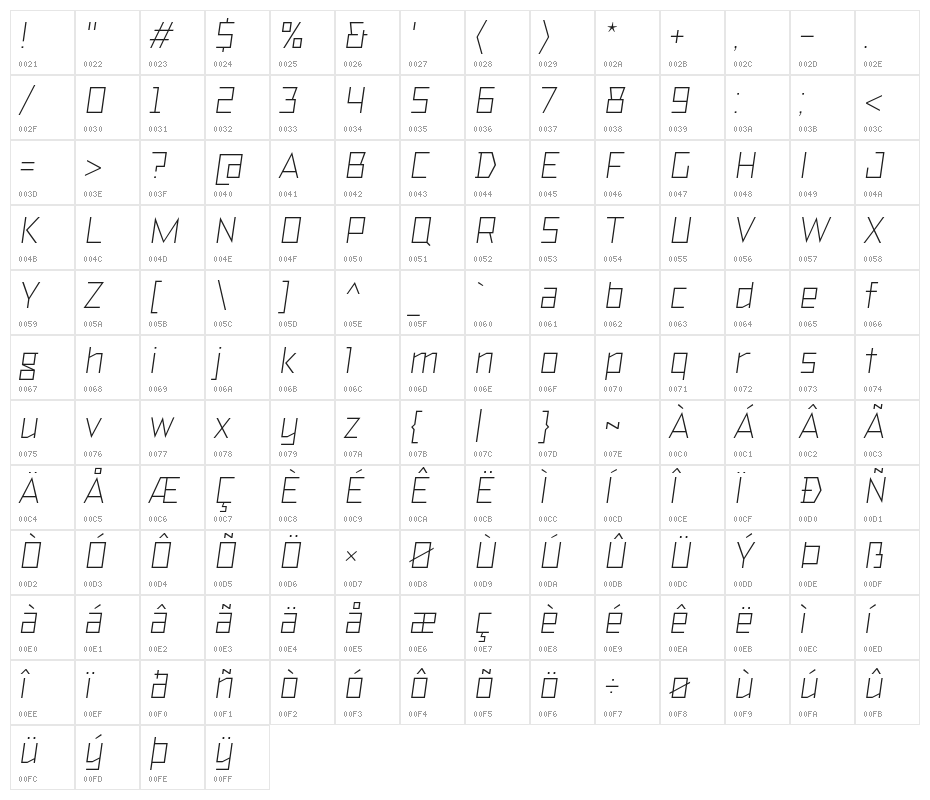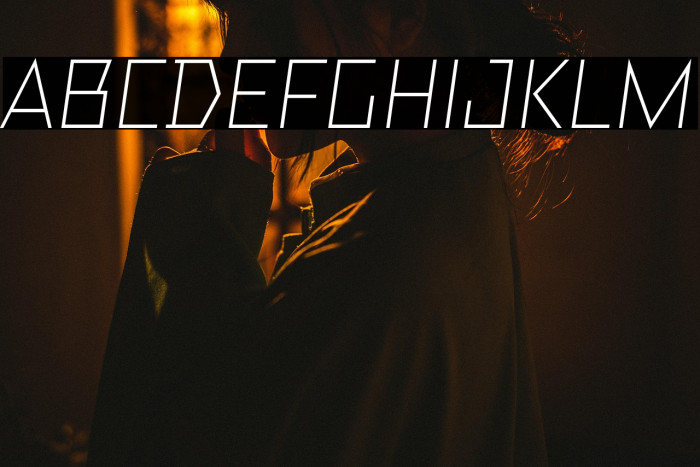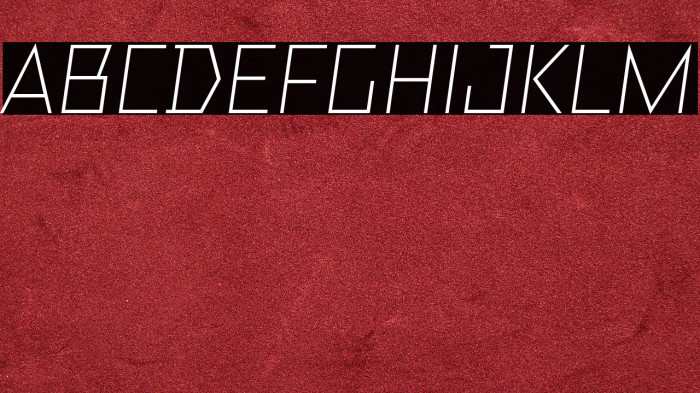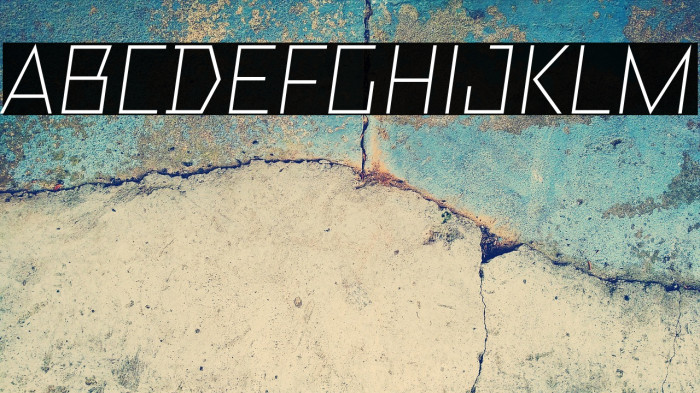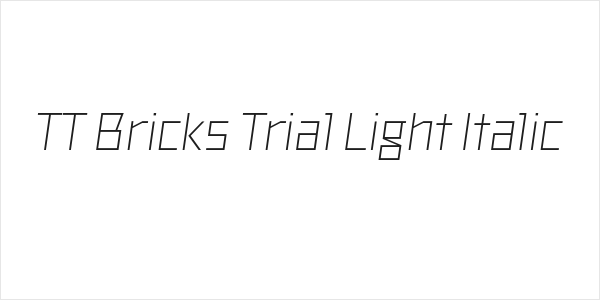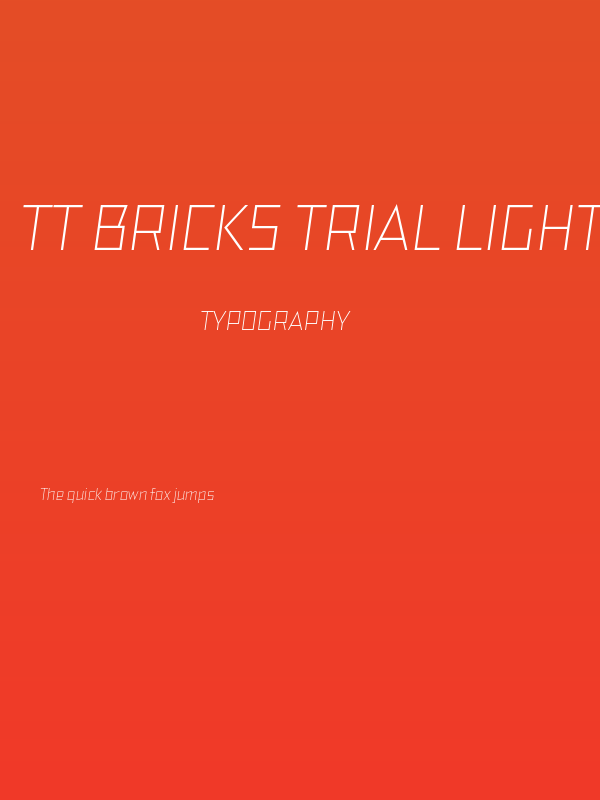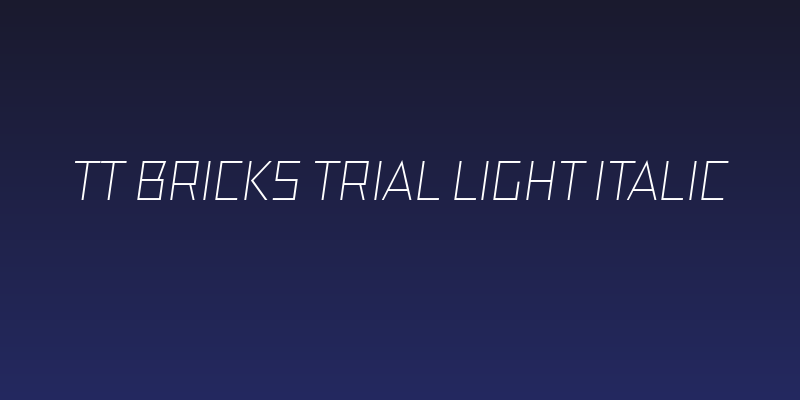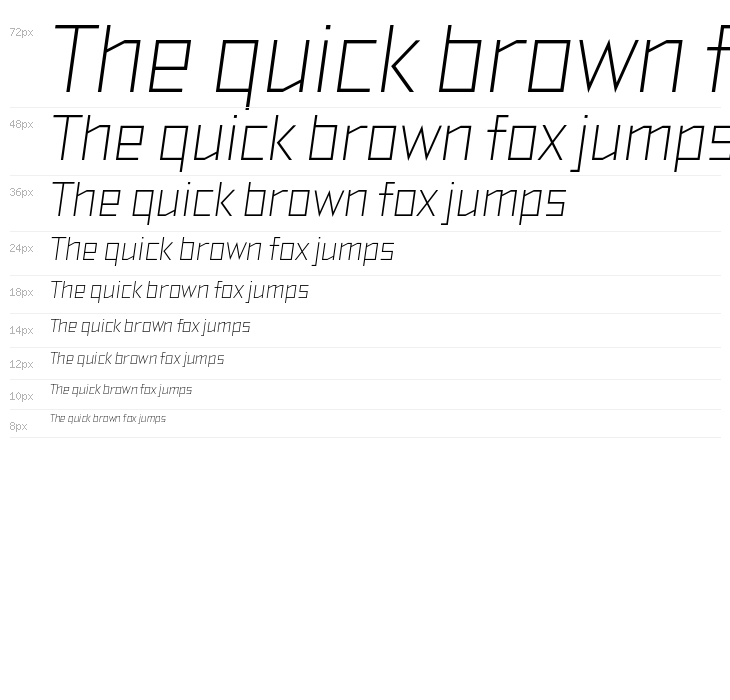
TT Bricks Trial Light Italic Font
TT Bricks Trial Light Italic Description
This font features a geometric and angular design with a modern twist. The characters are constructed with clean, straight lines and sharp angles, giving it a futuristic and technical appearance. The italic style adds a dynamic and forward-leaning aspect, enhancing its contemporary feel. The light weight of the strokes contributes to a sleek and minimalistic look, making it suitable for projects that require a modern and sophisticated touch. The character spacing is uniform and slightly wide, ensuring readability while maintaining its distinct style.
| Use Case | Logos, Headlines, Tech branding |
| Proposed Projects | Ideal for tech-related branding, modern advertising, and futuristic design projects. |